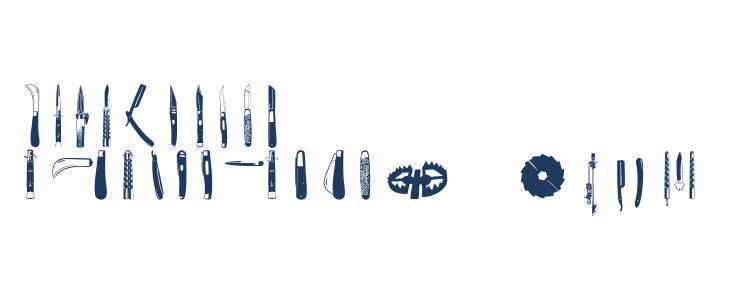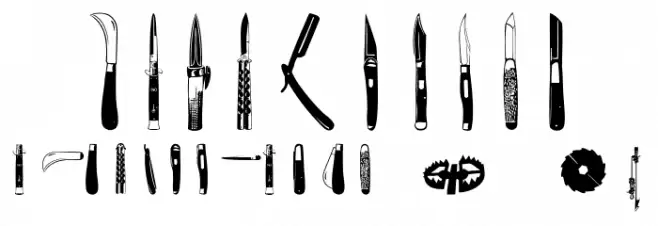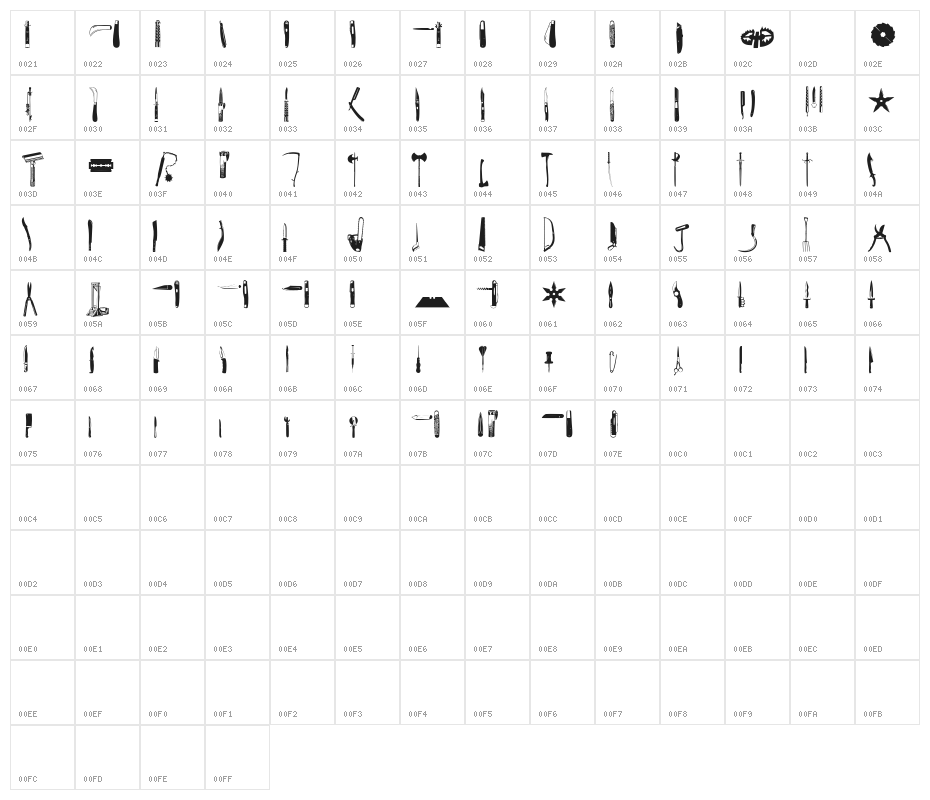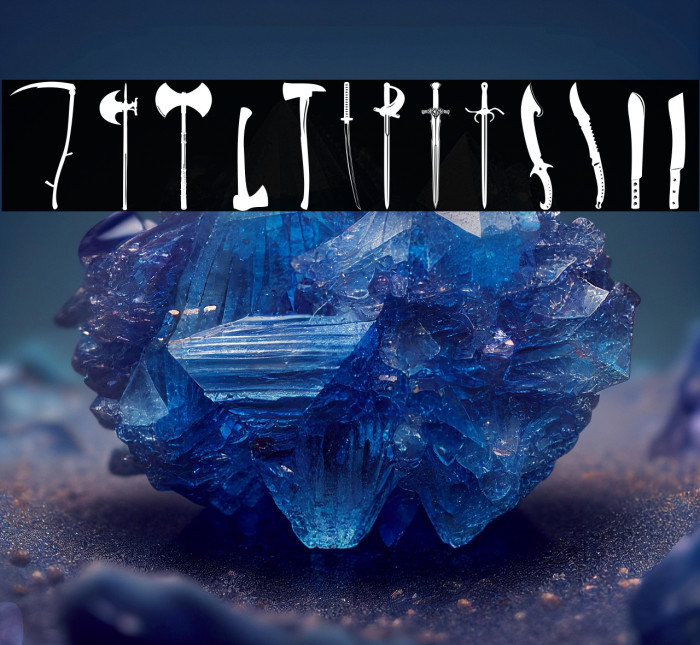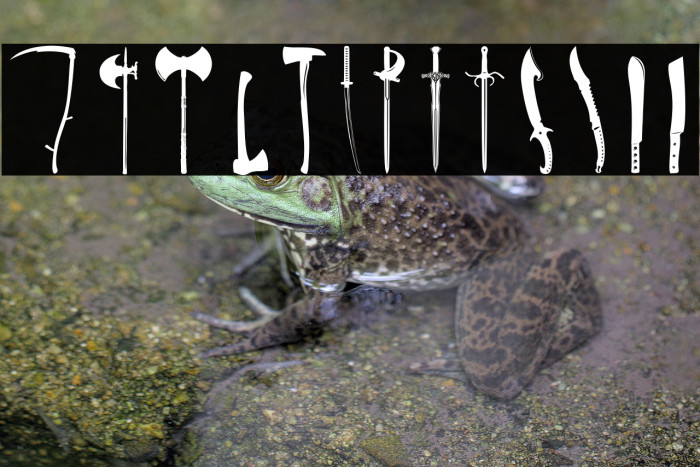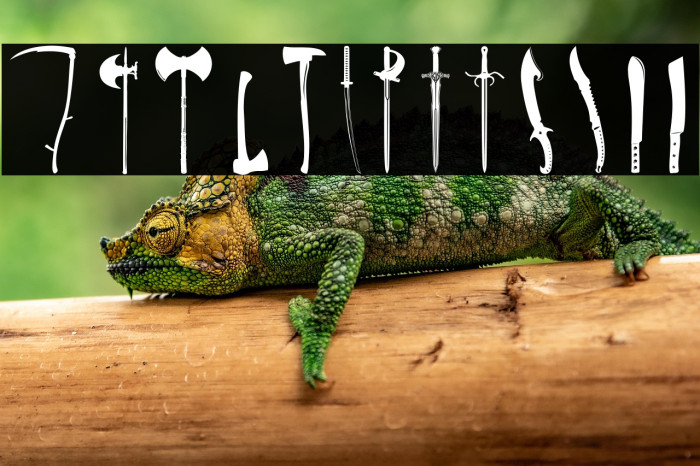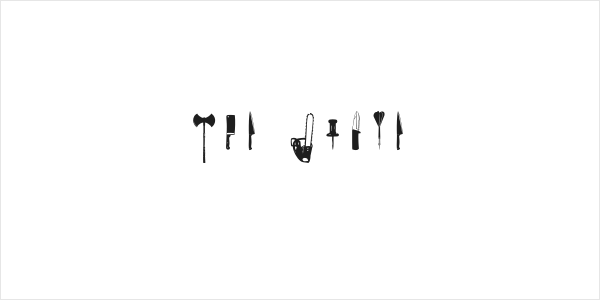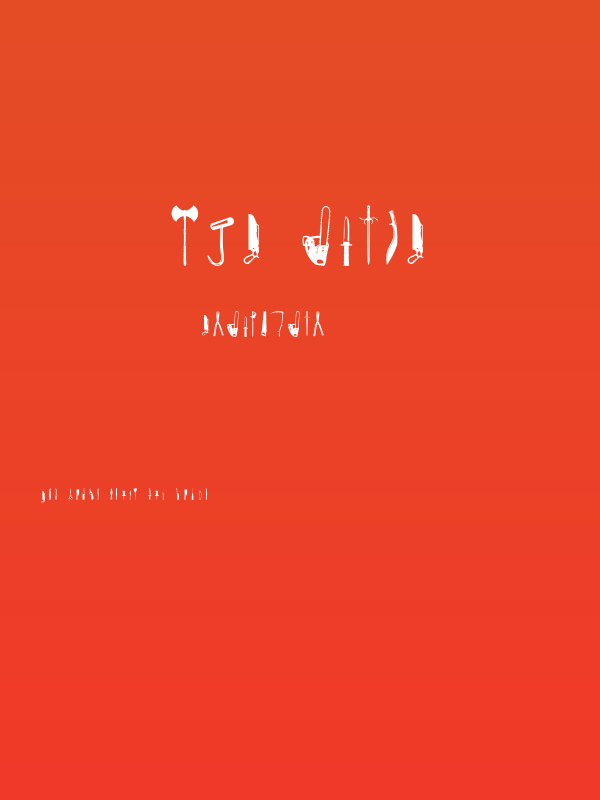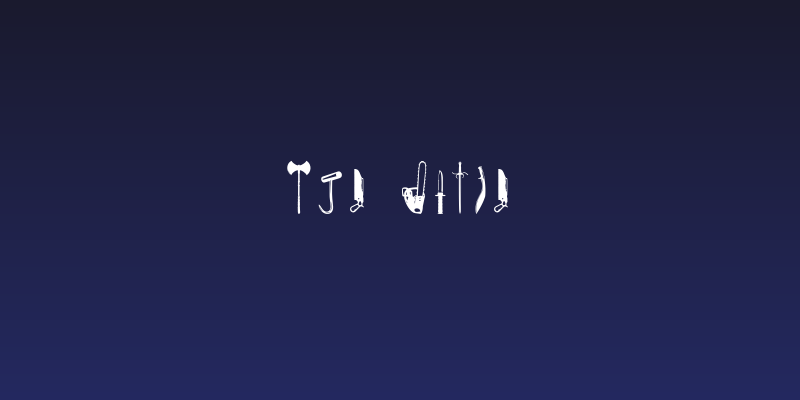
Cut Point Font
Cut Point Description
A highly decorative and illustrative font where each character is formed using silhouettes of various sharp objects and tools, such as knives, axes, scissors, and saws. The glyphs are bold, irregular, and visually striking, prioritizing thematic imagery over legibility.
| Overall Style | Decorative, Edgy, Thematic |
| Use Case | Headlines, Posters, Logos, Themed Graphics |
| Proposed Projects | Horror movie posters, Halloween event flyers, themed escape room branding, video game titles, or any project needing a dramatic, edgy, or dangerous visual impact. |